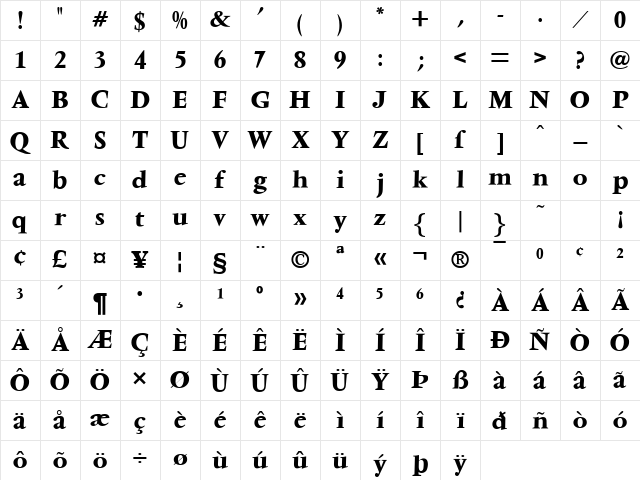
Complete Ventura Bold glyph index. Displaying only characters natively supported by Ventura Bold font.
Ventura is a composed and adaptable typeface that performs quietly and consistently across a wide range of design contexts. Its bold stroke weight gives it real presence on the page.